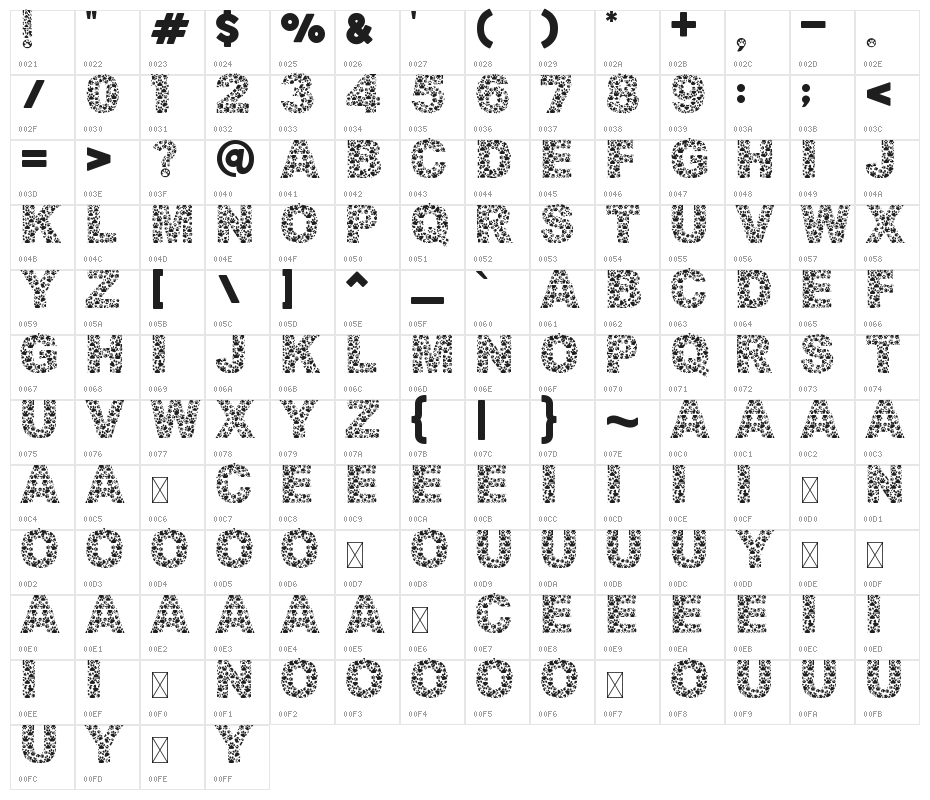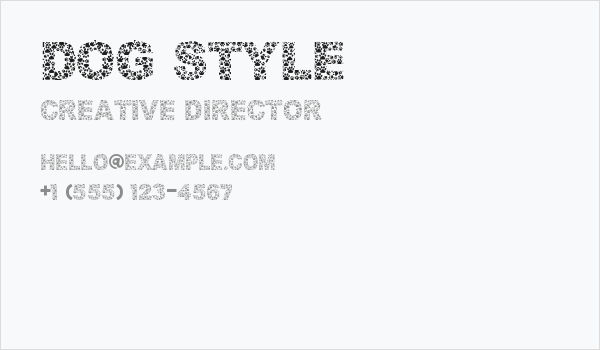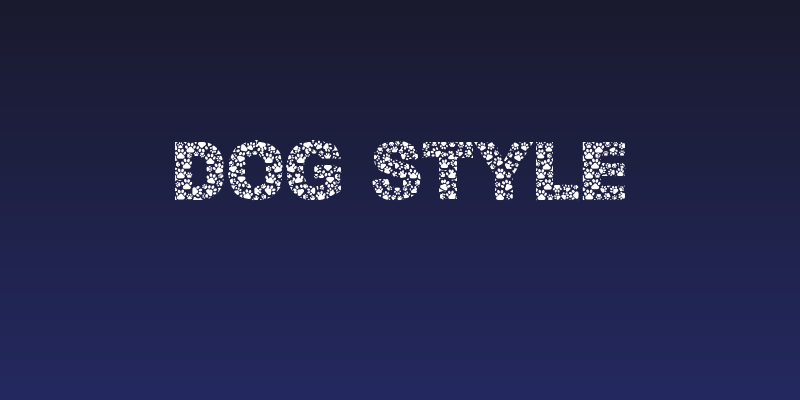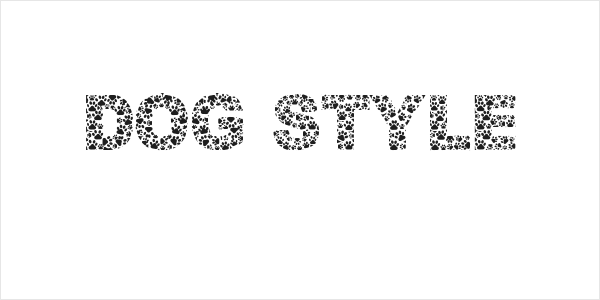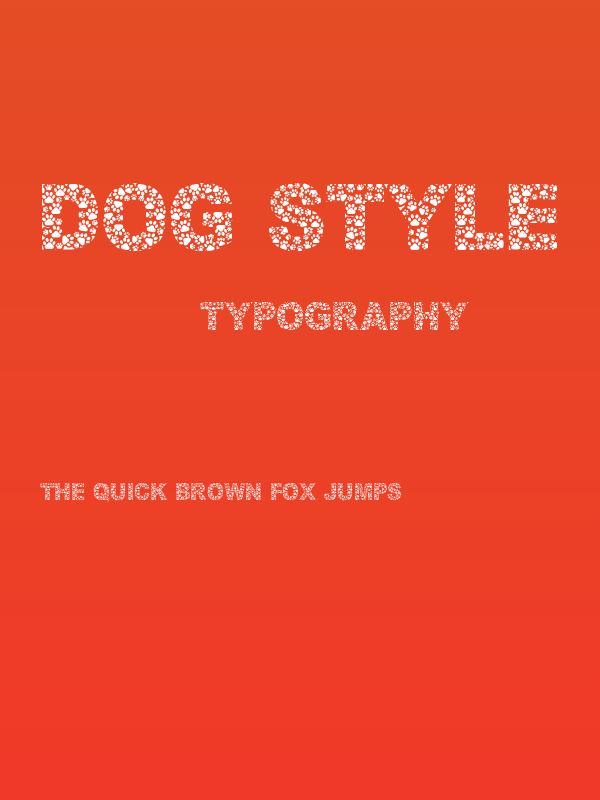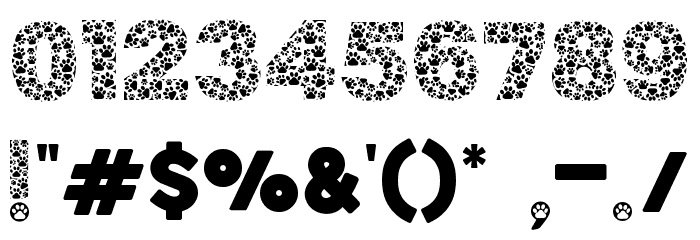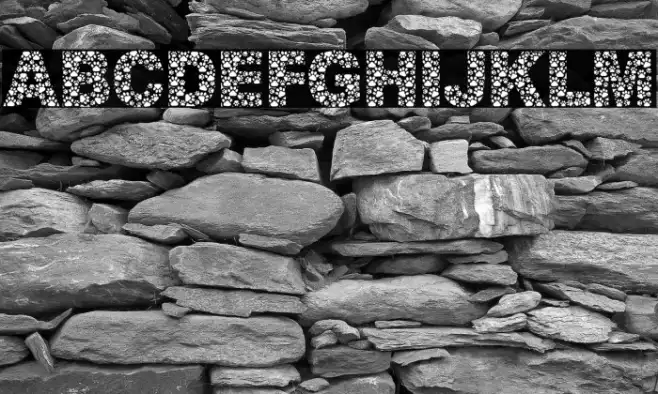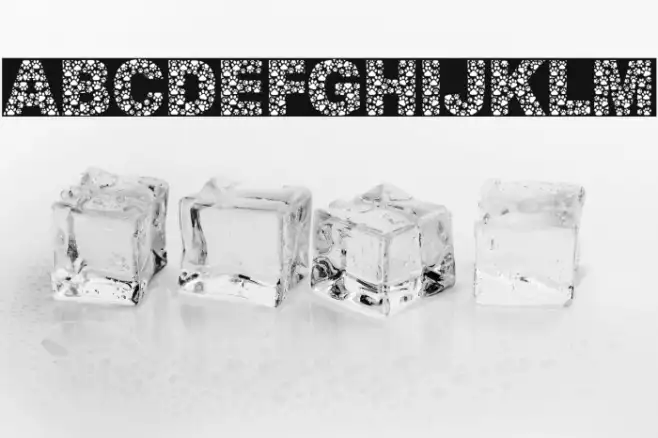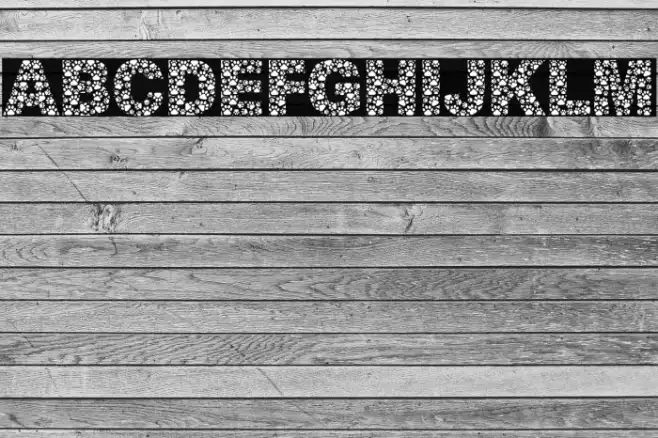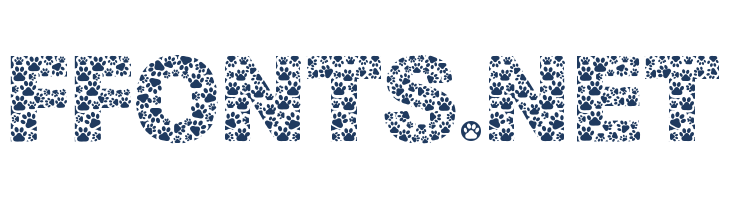
Dog Style Font
Dog Style Description
This playful and unique font features a pattern of small dog paw prints filling each character, creating a textured and whimsical appearance. The uppercase and lowercase letters, along with numbers and special characters, are bold and eye-catching, making them suitable for designs that require a fun and engaging look. The font's distinct style is perfect for pet-related projects, children's materials, or any creative endeavor that seeks to incorporate a sense of joy and playfulness. The characters are evenly spaced, ensuring readability while maintaining the decorative elements.
| Proposed Projects | Ideal for pet store branding, children's book covers, playful posters, and event invitations. |